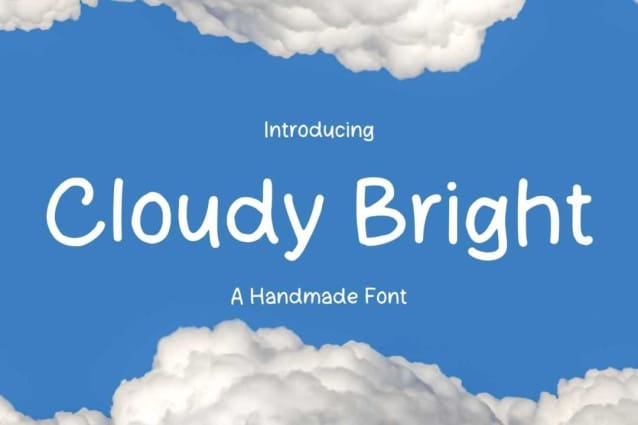
Cloudy Bright Font
Cloudy Bright Font is a handwritten comic/cartoon-style font. Masterfully designed to become a true favorite, this font has the potential to bring each of your creative ideas to the highest level!